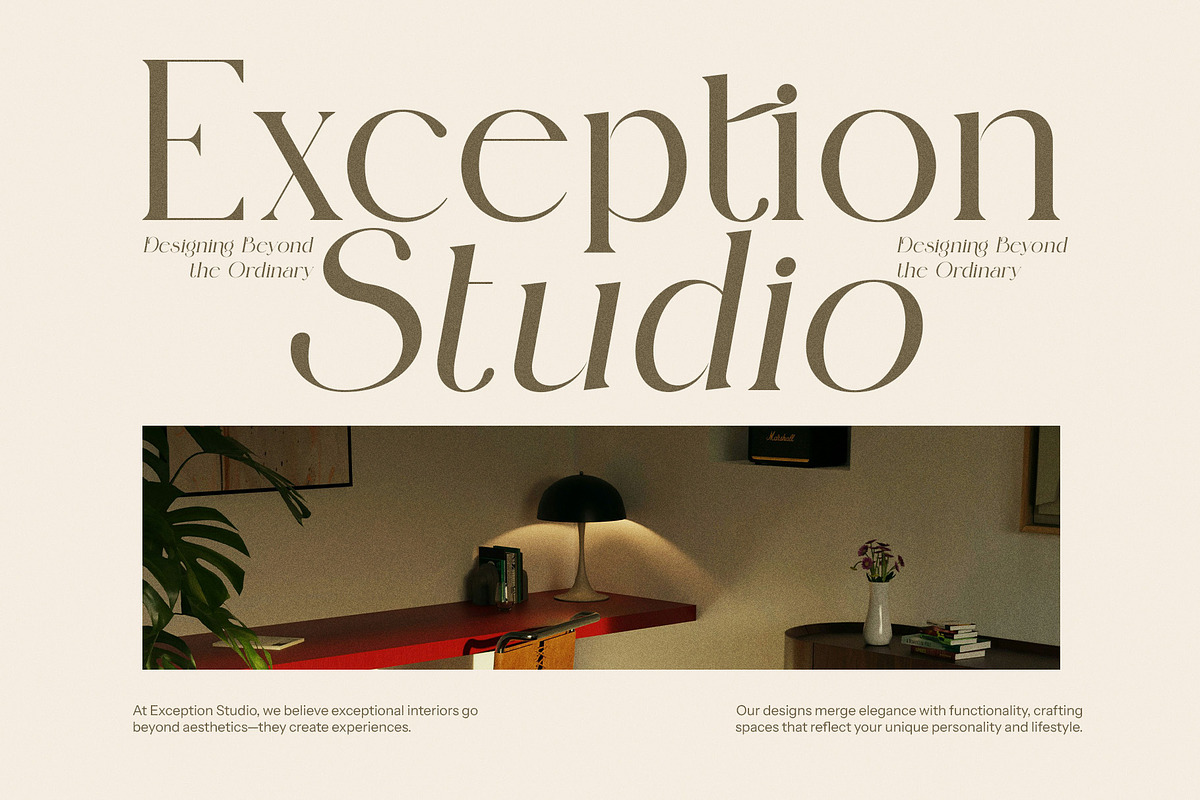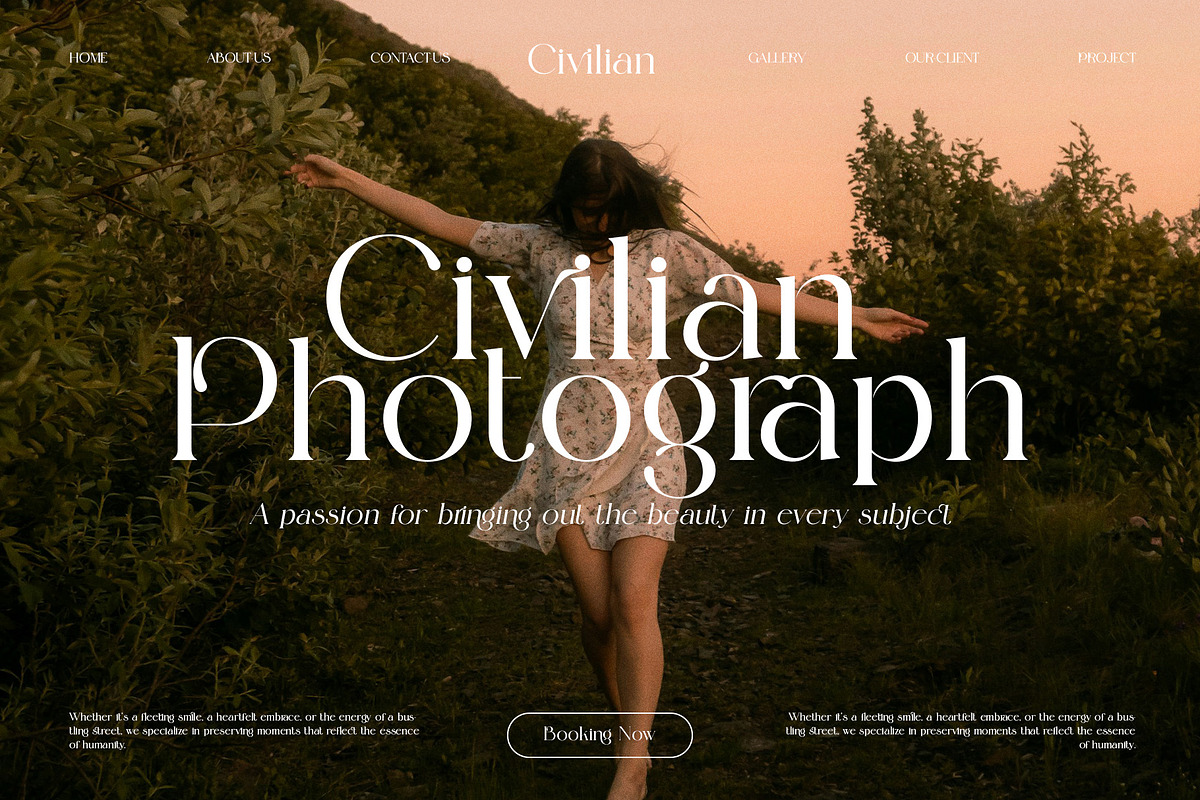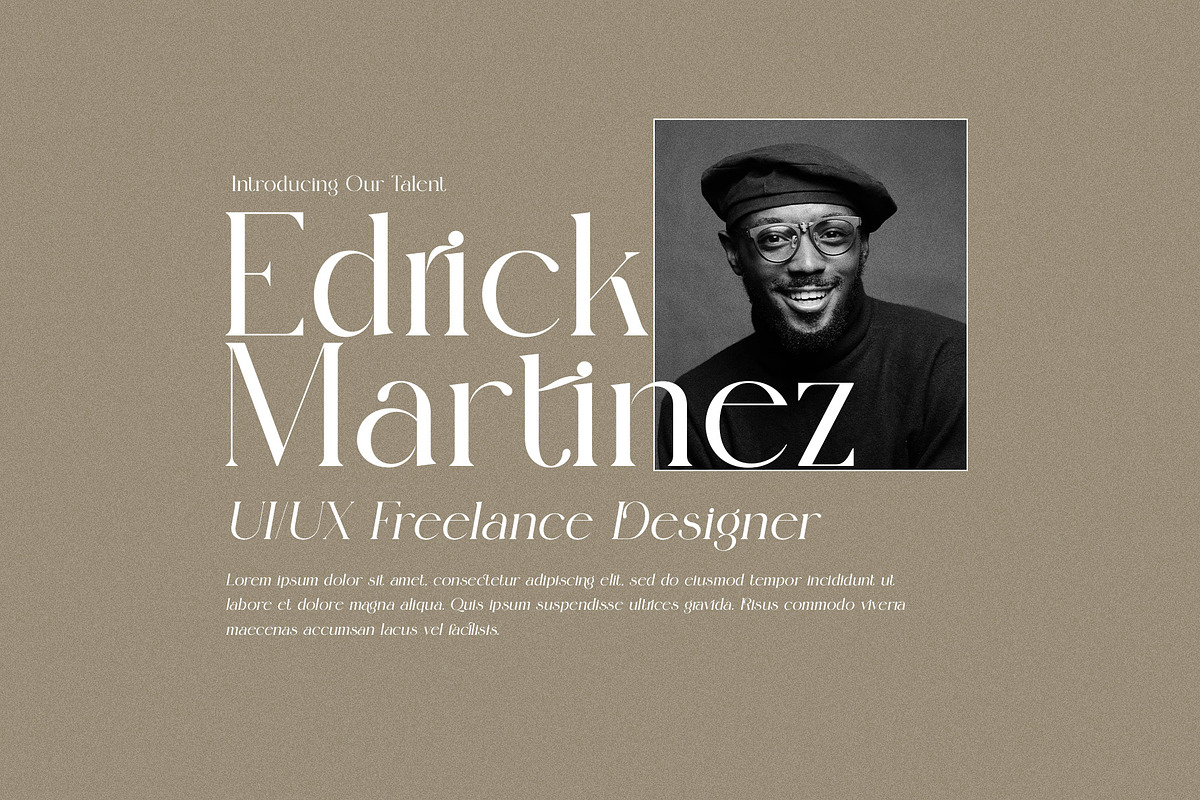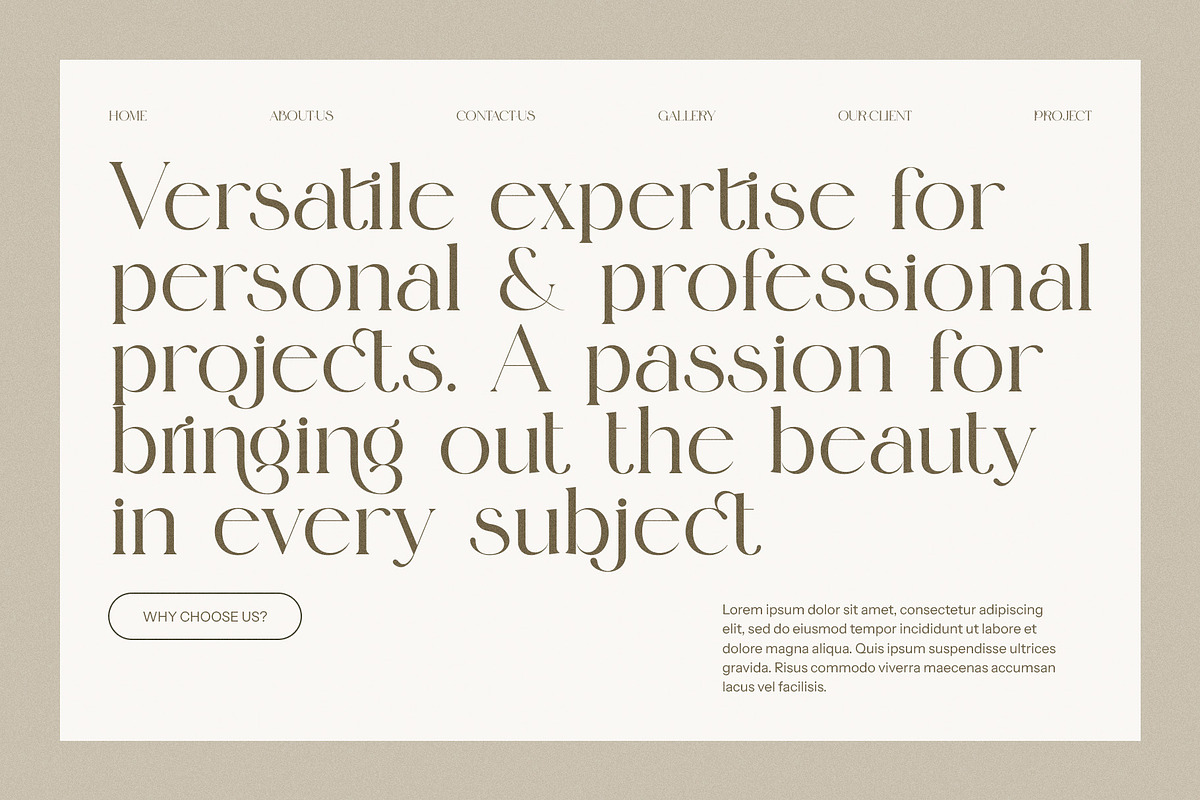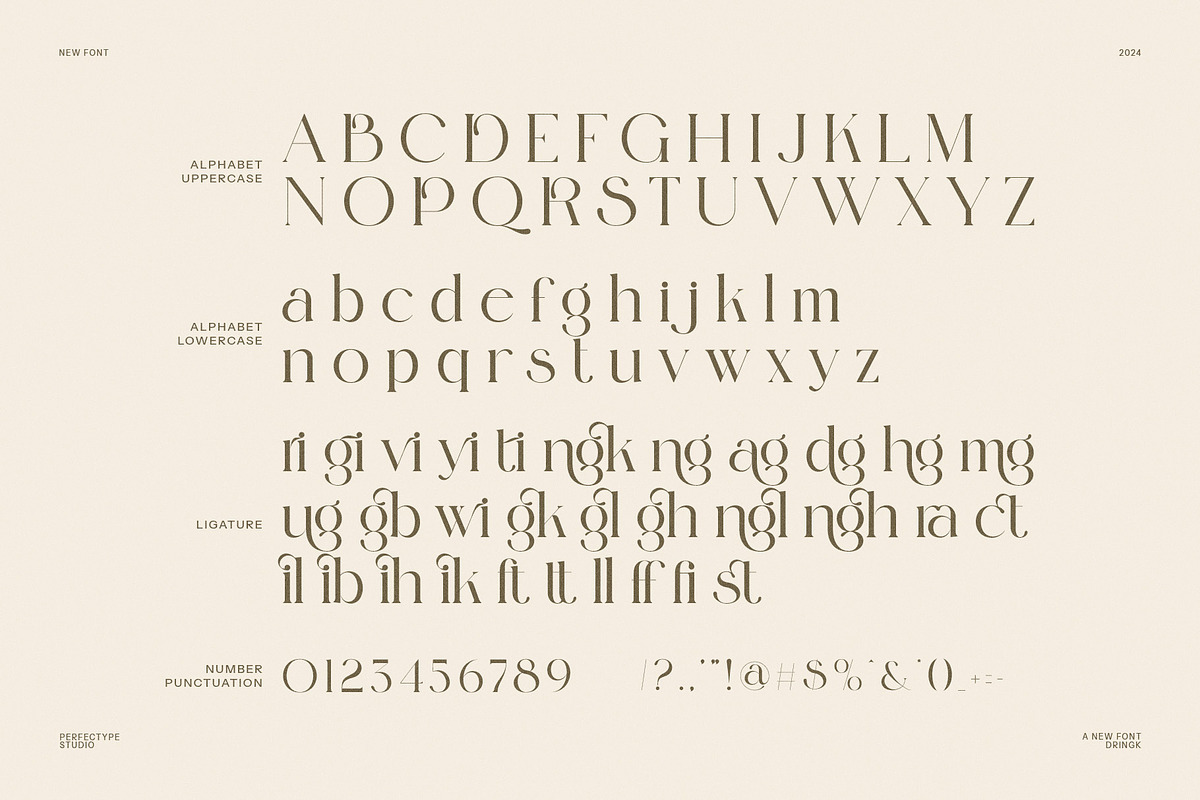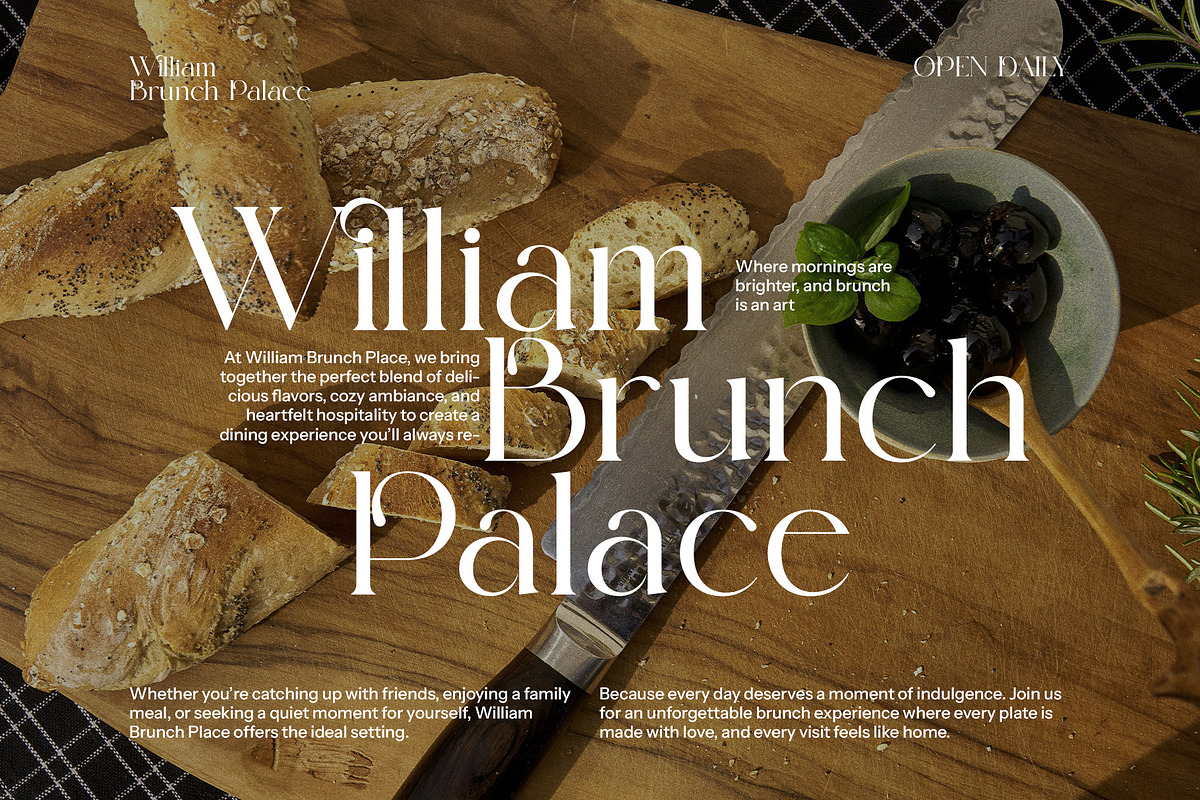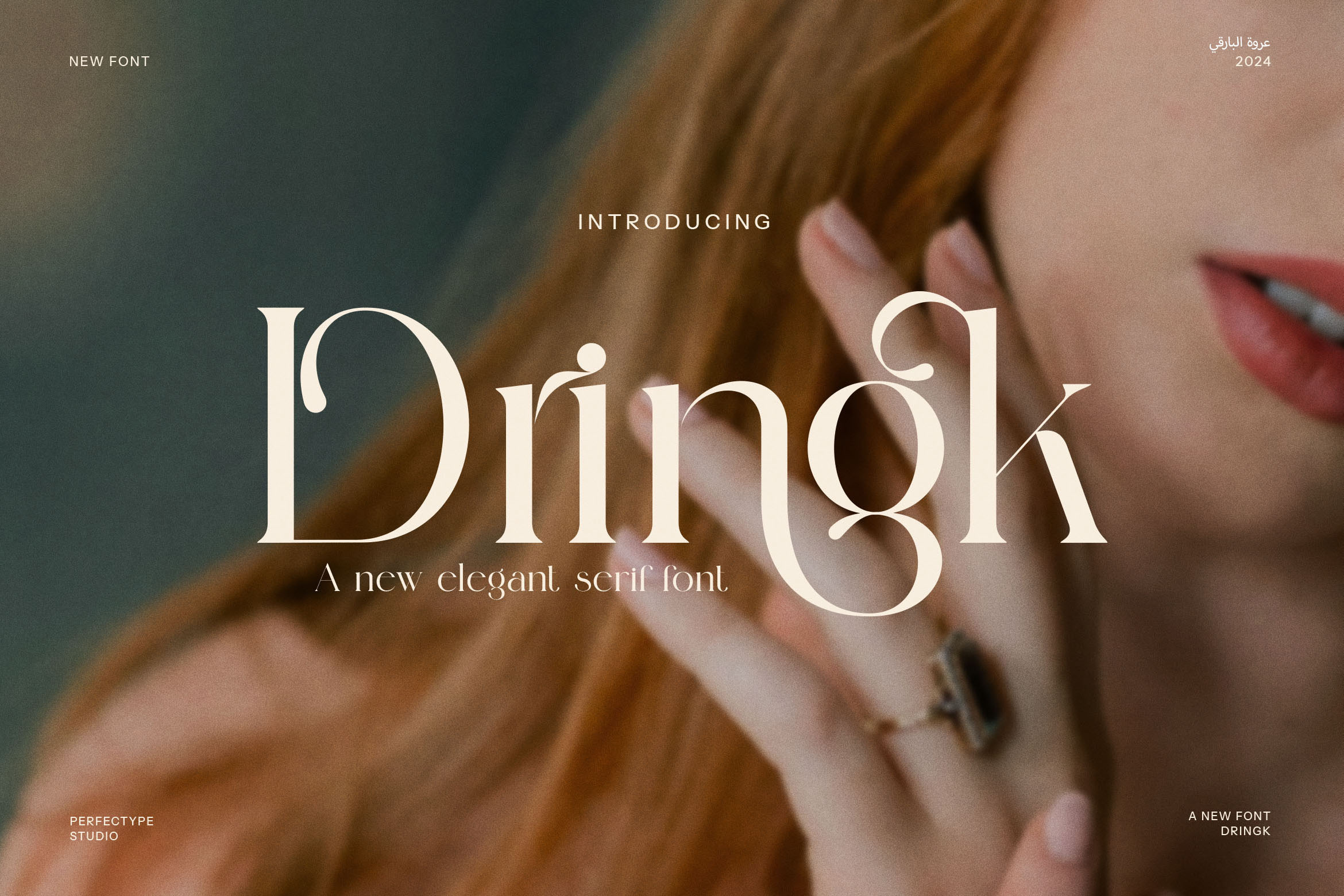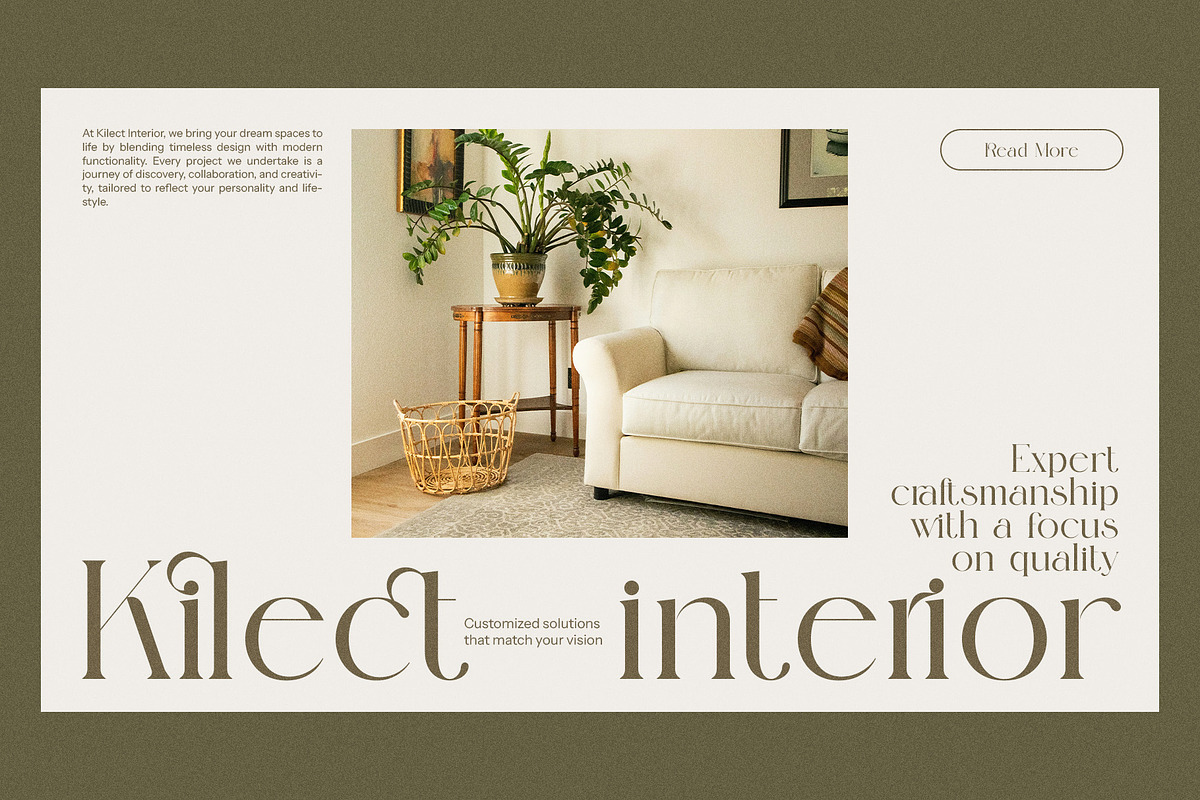
Dringk Stylish Serif Font
Dringk Stylish Serif Font is a sophisticated and modern typeface that embodies elegance and uniqueness. Crafted with careful attention to detail, this font features beautifully designed ligatures and alternate characters, transforming traditional serif elements into a refined and innovative design. The harmonious blending of several letters into distinctive shapes creates an unforgettable visual experience, making it perfect for a wide range of creative projects.
Ideal for branding, logos, and advertisements, Dringk Stylish Serif Font stands out in both digital and print media. Its versatility extends to magazine layouts, product packaging, boutique signage, food branding, and websites. The font’s sleek, contemporary aesthetic pairs perfectly with modern design trends, while its classic serif structure ensures readability and sophistication.
Whether you’re creating an eye-catching logo, enhancing a website’s typography, or designing a high-end product label, Dringk Stylish Serif Font brings a touch of luxury and refinement. The font’s unique ligatures and alternates elevate any design, offering an unmistakable flair that resonates with premium quality and attention to detail.
With its perfect blend of tradition and innovation, Dringk Stylish Serif Font is the ideal choice for any project that seeks to make a statement while maintaining timeless elegance. Perfect for luxury brands, high-end products, or any creative venture that requires a touch of class and individuality, this font is sure to leave a lasting impression.